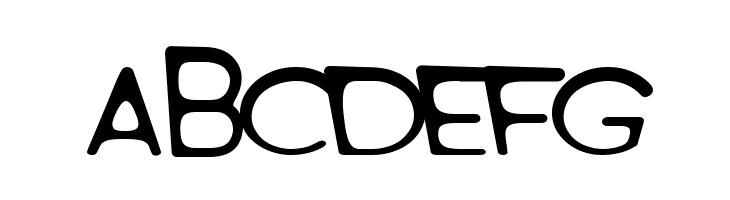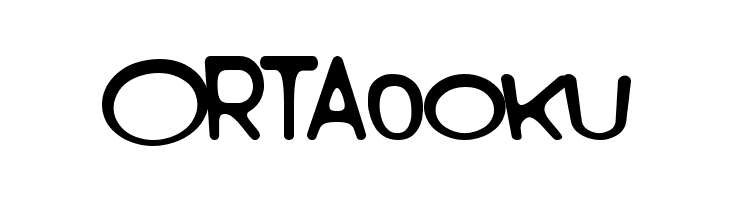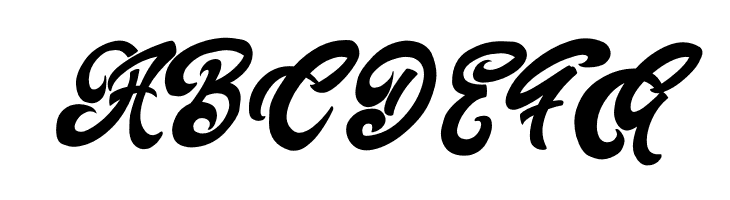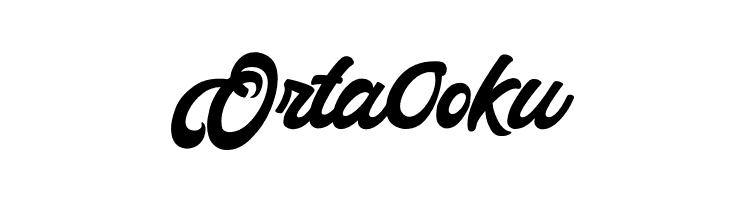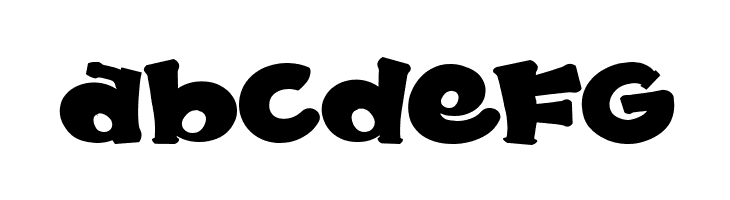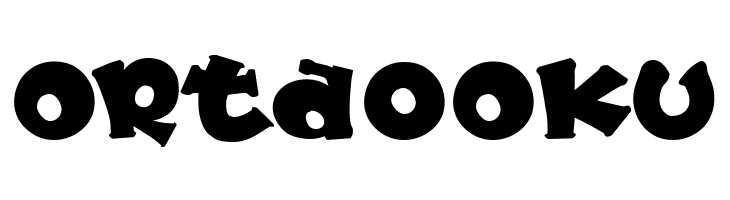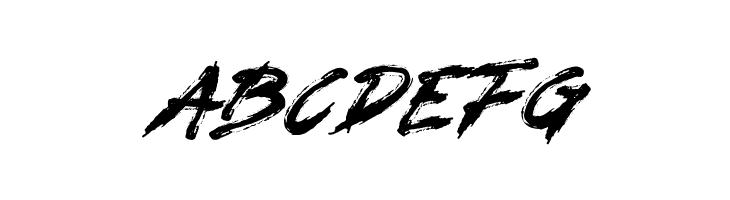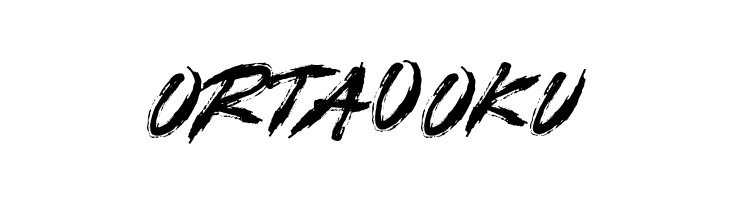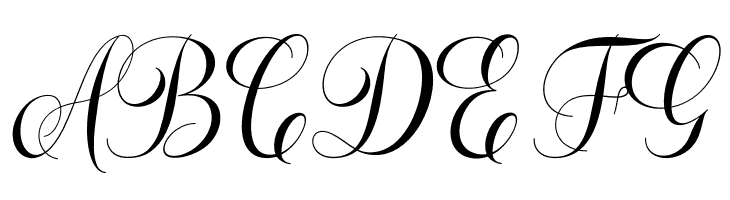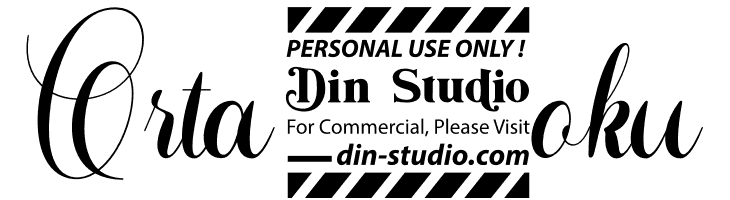
• Monster Sprinkle
A playful, handwritten font with a casual and flowing style.
• Monster World
A playful, bold, and cartoonish font with rounded, hand-drawn characters.
• MONSTERA
A bold, brush-style font with dynamic, textured strokes and an expressive, artistic appearance.
• Monstrous Zosimus
• Montages
A bold, flowing script font with elegant cursive letterforms and high contrast.
• Montheylin Personal Use
An elegant and flowing script font with intricate details and graceful curves.
• MOOCHIO Bold
A bold, playful font with exaggerated curves and a whimsical style.
• MOODERN
A bold serif font with high contrast and a modern classic style.
• MORBIDA
A bold, outlined decorative font with a vintage flair.
• Morning Sunshine
A modern, artistic font with bold geometric and organic shapes.